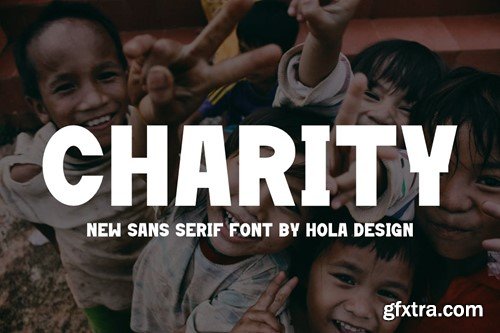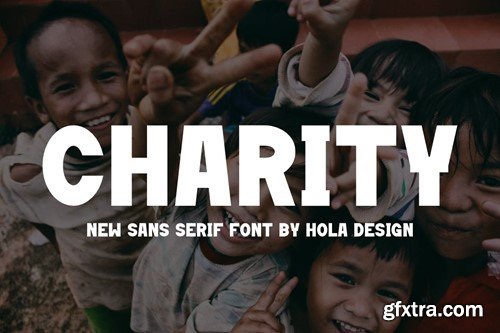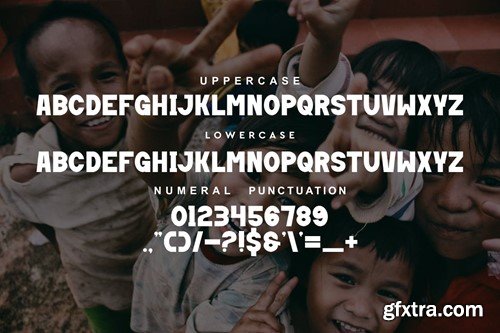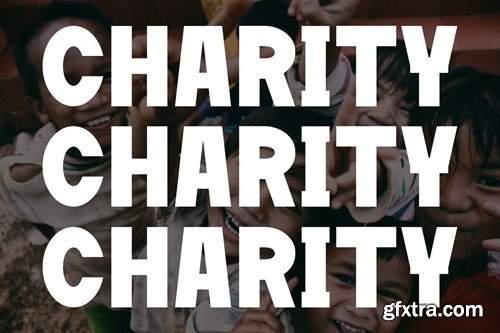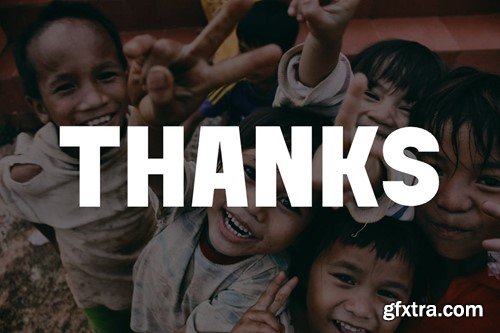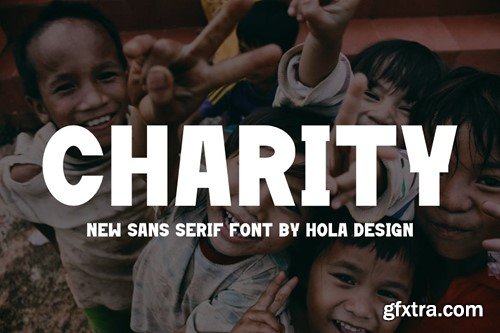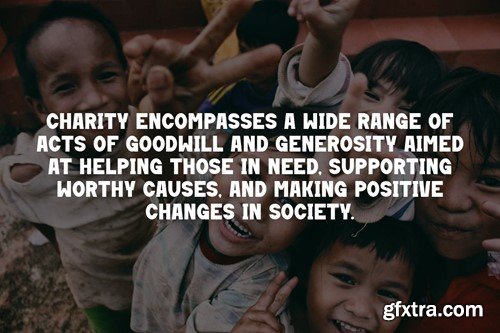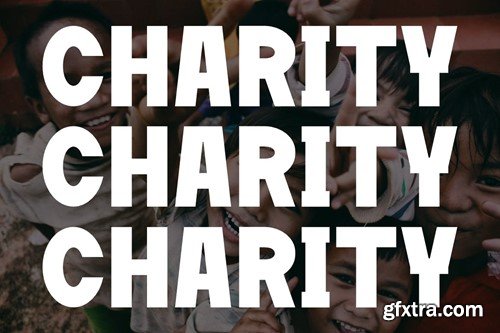
慈善 - sans serif 字体 ZPU67MS
Charity - Sans Serif Font ZPU67MS
Charity - Sans Serif Font
Charity - Sans Serif Font Font is unique . Ready to use for your design like labeling, movie sceen, poster, movie title, gigs, album covers, logos, and much more.